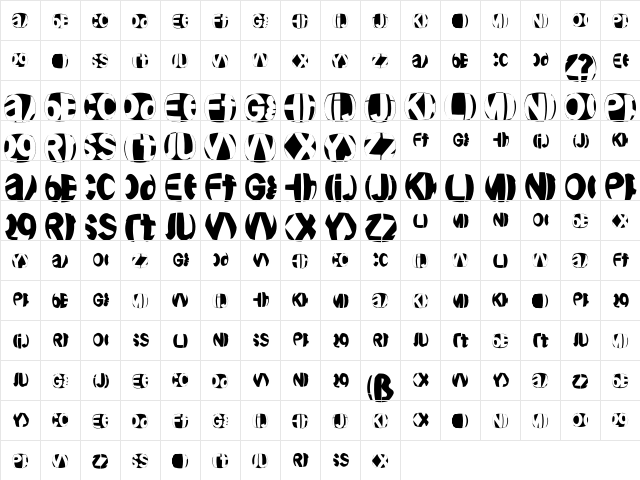
TypoDisturbances Medium Font Preview
TypoDisturbances Medium
Design Context for TypoDisturbances Typeface
TypoDisturbances is a composed and adaptable typeface that performs quietly and consistently across a wide range of design contexts.